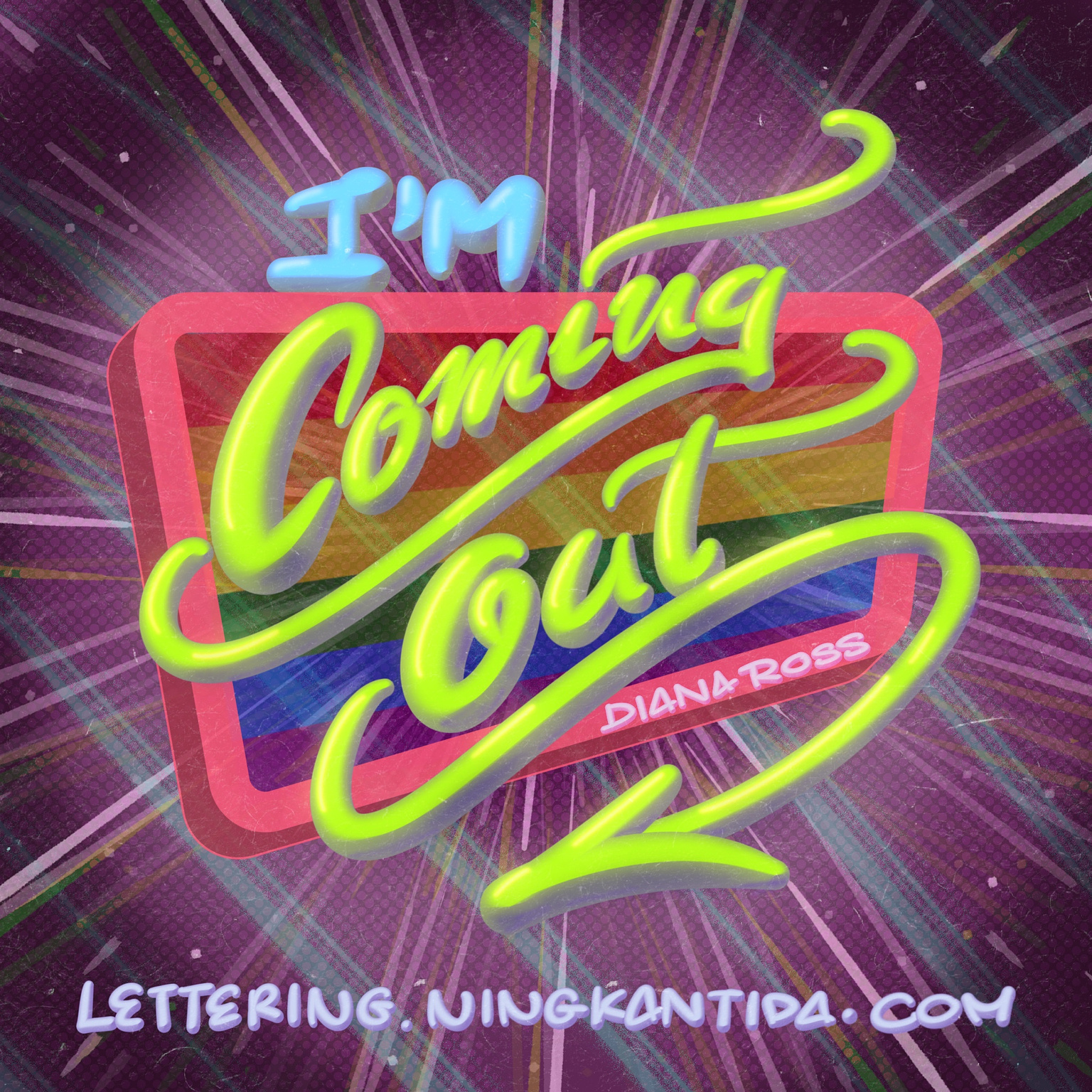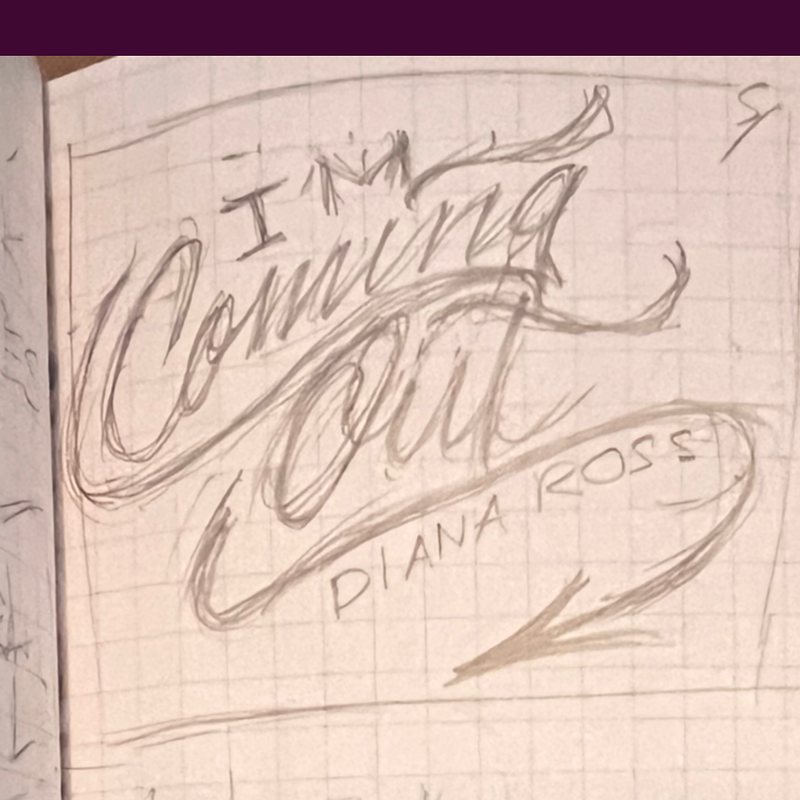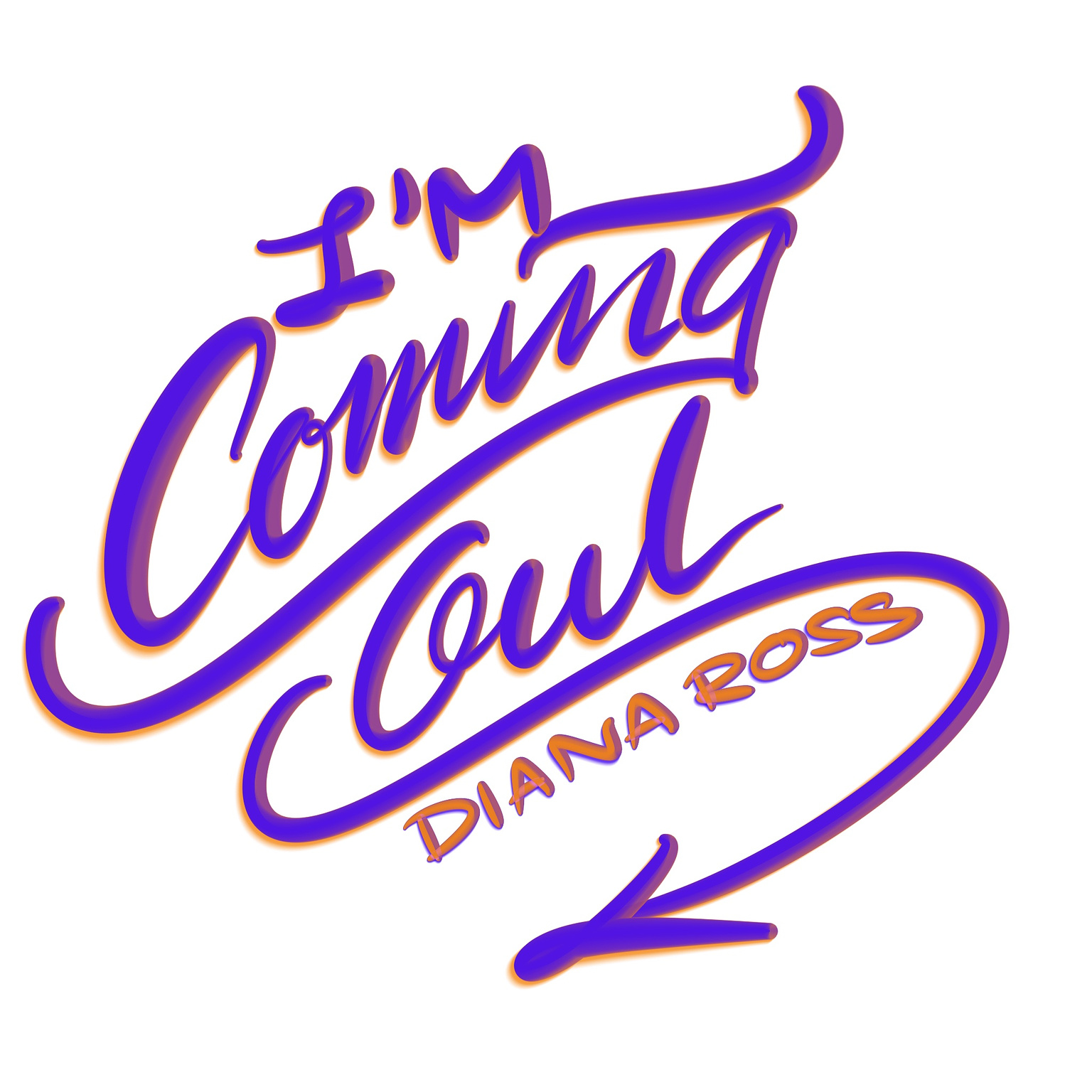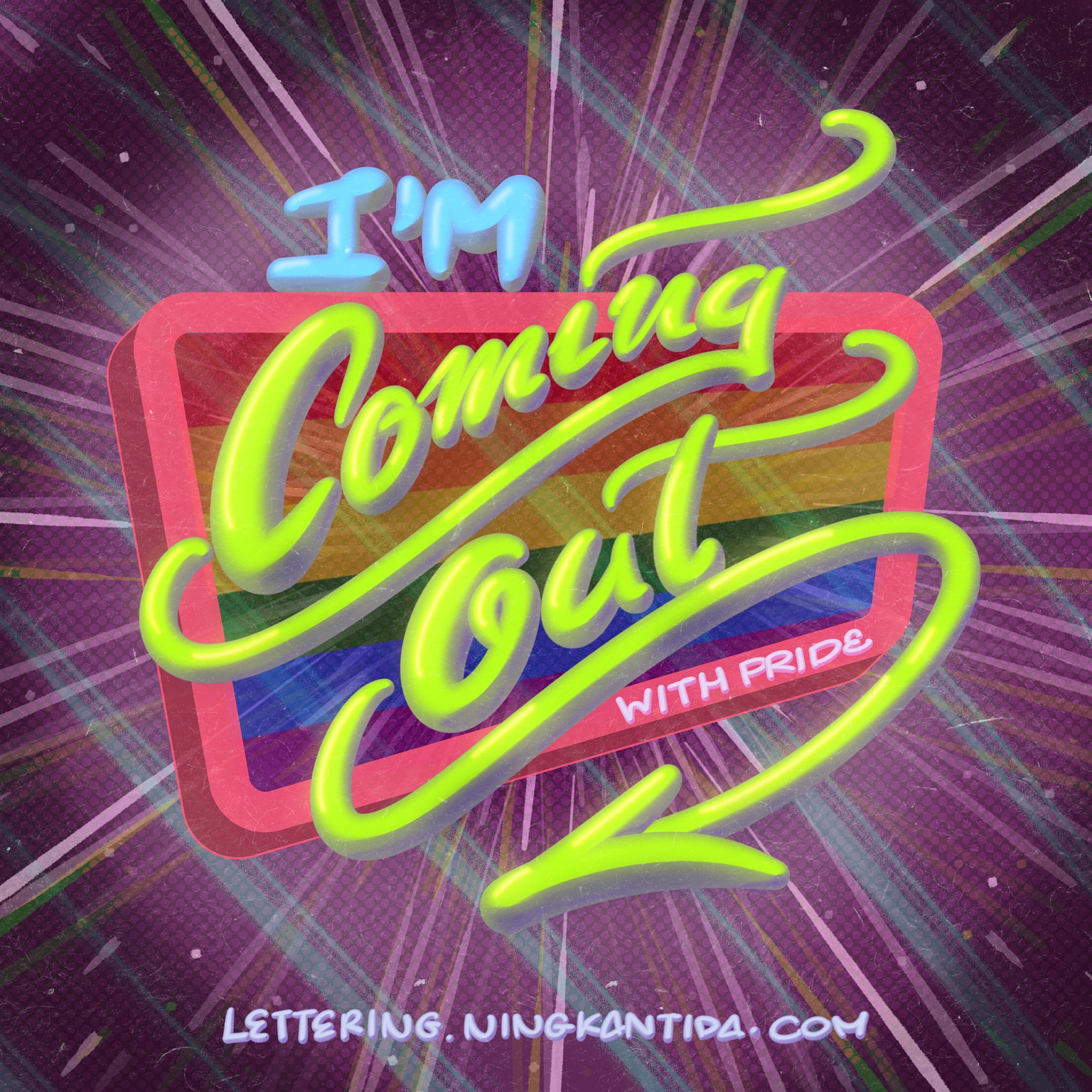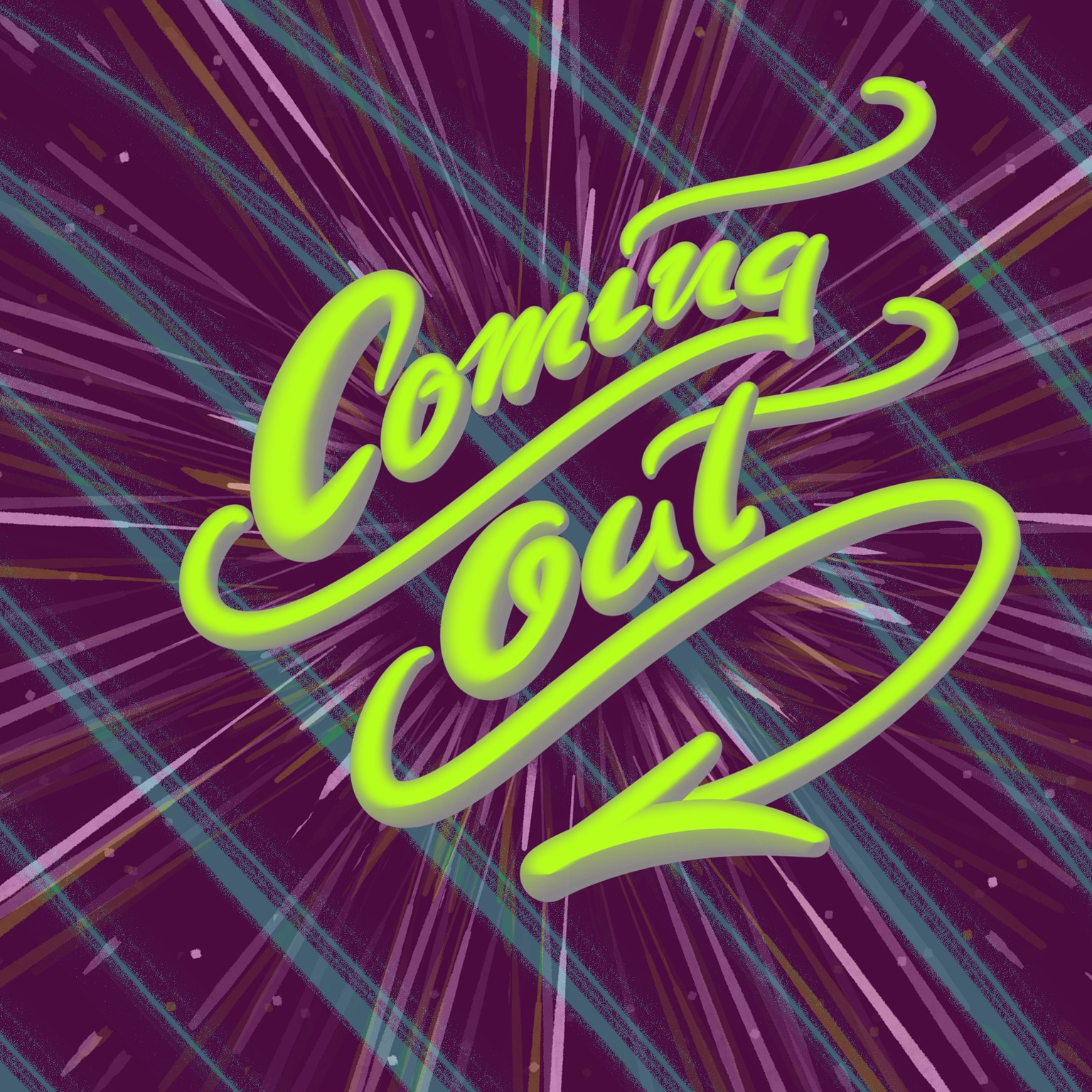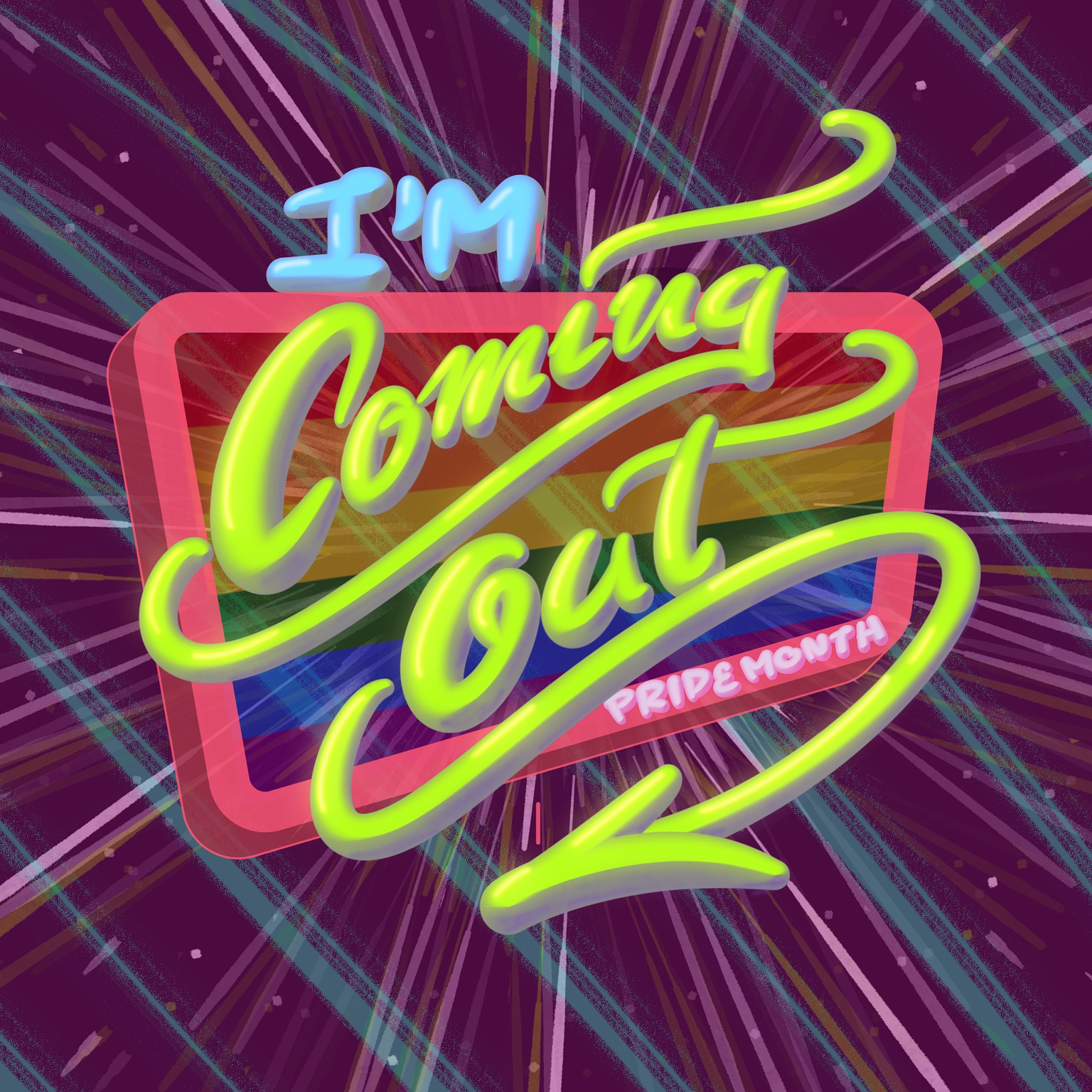
Pride Month Music 05-I’m Coming Out by Diana Ross
As we approach the end of Pride Month, I’m creating lettering pieces
celebrating music related to LGBTQIA+ community. My goal is to expose
people to good music and artists while also help bringing the community
filled with diversity together, since music is like a universal language
that can touch anyone’s heart.
I wanted to create a lettering piece as a tribute to Diana Ross’s iconic song, “I’m Coming Out.” This song perfectly captures the spirit of liberation and the pride of expressing one’s true self. The phrase “come out of the closet” holds deep significance within the LGBTQIA+ community and resonates with many individuals. That’s why I believe this artwork will be meaningful and fitting for Pride Month.
Since there are a lot of details on this lettering piece that I'm proud of, I'd like to elaborate on my process for this one.
Process
Step 1: Ideation and Sketching
I aimed for the lettering to be stylish, playful, and not strictly adhering to guidelines to symbolize individuality and personal flair, and the free spirit of liberation that’s ready to show off one's identity without societal constraints.
I arranged the phrase in an upward alignment, with fluid and expressive hand-lettering with slightly tilt and curve letters and some bounce between letters and words, to symbolize rising and breaking free from the norms.
I wanted to ground the visual tone a bit by using a bold, uppercase for “I’m”, and for the artist’s name.
I, then, added swashes and decorative elements that posses a
free flow yet align harmoniously to create a visual rhythm,
similar to how everyone in the community has their own distinct
personality while flowing with their unique character.
Step 2 Digitize the First Draft
I digitized the sketch using the Procreate app and experimented with various lettering brushes from my catalog. My focus was on finding brushes that offered 3D depth and texture to visualize a deep understanding of one's unique identity. I wrote the phrases freely, using the sketch as a guideline underneath, to determine what fit best.
Step 3 Create a Visual Style
I decided to go for a retro disco/funk style since it seems to fit with the song and the theme of a vibrant life after deciding to flaunt off your unapologetic self.
Since my lettering alignment leans towards the upright, I added an opposite line pattern in the background to create subtle visual balance.
For the lettering, I chose a retro disco aesthetic with neon green and vibrant colors. This approach enhances the fun element and aligns with the tone of liberating one’s true self.
After experimenting with the brush for a while, I settled on the brush that has a metallic feeling to add depth and tactile energy.
I then added rays of light burst around the lettering to symbolize the feeling of emerging and coming out to the world, adding dimension and excitement from self-expression.
Step 4 Added a Retro Sign
To enhance the retro vibe, I added a retro sign beneath the lettering, symbolizing breaking free from societal norms by making it look like the lettering are bursting out of a sign frame. This also helps drawing the viewer's eyes to the focal point. I included the pride flag inside the sign to represent visibility and inclusion of the LGBTQIA+ community, using a distortion tool in the app for a perfect fit with the retro sign.
Step 5 Add Light and Shadow
I added light and shadow to each letter, creating a radiant effect like a neon sign, evoking a sense of shining brightly and standing proud. I used a neon brush on the top left of each letter, as the light originates from this direction, and blended it with the lettering base using a Gaussian Blur. Shadows were created similarly but on the opposite side on each letter.
Step 6 Finish the Background Details
I used a soft brush to add a ring of light around the lettering, making it appear as if the lettering illuminates the scene, enhancing the ray burst effect that I already put in place. I also added a vignette in each corner using the same technique. Again, I used the Gaussian Blur to blend them with the background.
Step 7 Add Rich Textures As a Final Touch
To add richness, I overlaid a paper texture on the top layer and a halftone texture under the lettering, giving visual depth and more authentic retro feeling to the overall design.
I also have the alternate version changing "Diana Ross" to "With Pride" to make the message reads as "I’m Coming Out With Pride," highlighting the theme of liberation and authenticity even more.